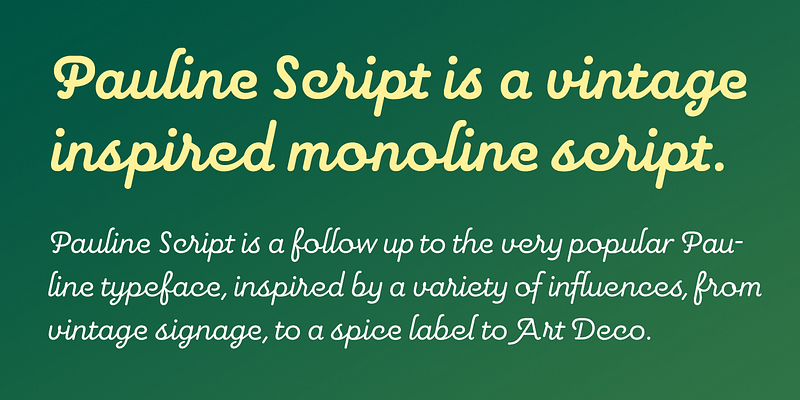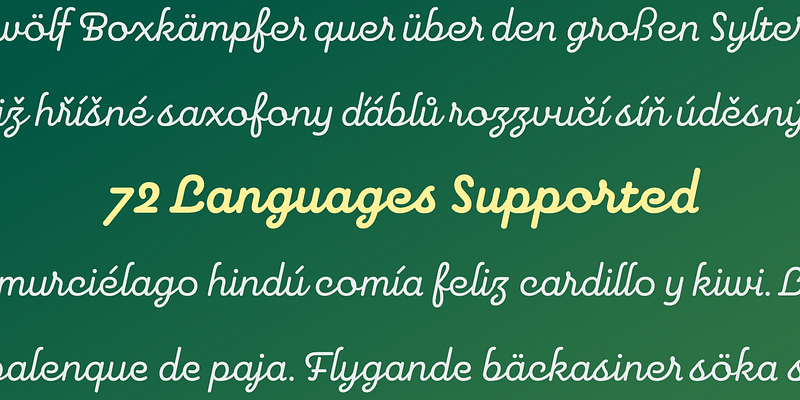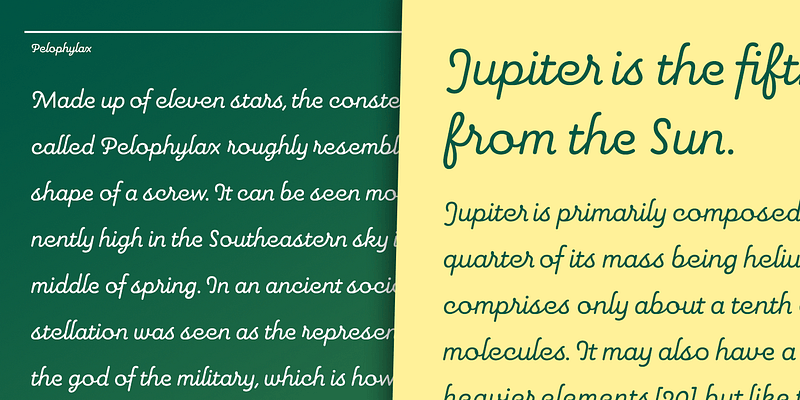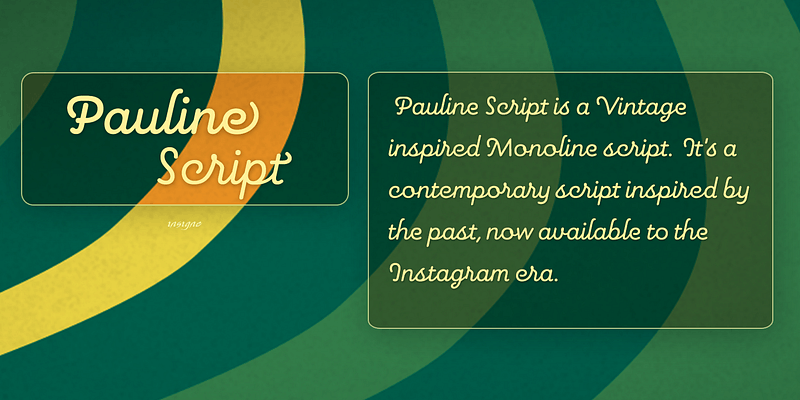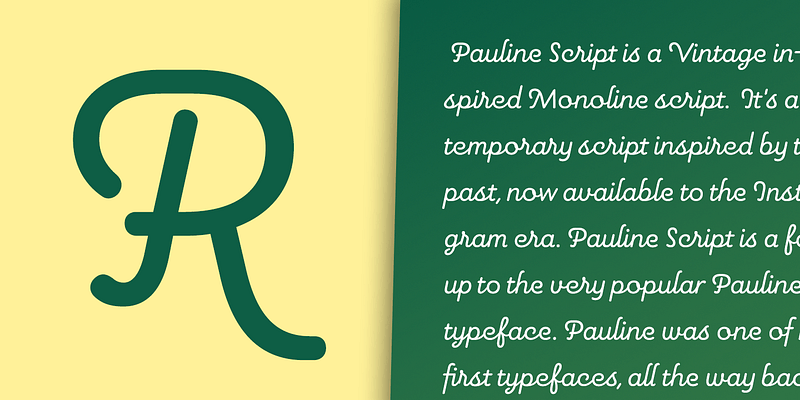
Pauline Script is a monoline script with a vintage feel. It’s a modern script with historical inspirations, now available for the Instagram era.
Insigne Design has a wide range of quality typefaces, including sans serifs, scripts, text faces and experimental forms. Insigne is the foundry of Jeremy Dooley. Jeremy travels widely and has lived in Europe and the Middle East and is a graduate of Savannah College of Art and Design. Jeremy currently lives in Chattanooga, Tennessee, United States.